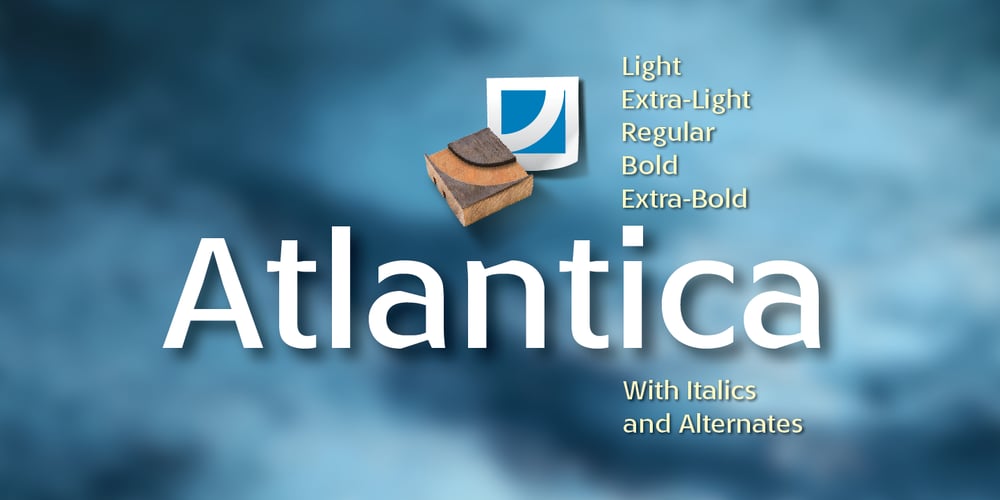
Atlantica
Atlantica font
Atlantica Font Family was designed by published by Jonahfonts. Atlantica contains 10 styles and family package options. My pet peeve for many years has been with the ‘rn’ in small texts, especially with my smart phone. I felt that perhaps others may have the same peeve.I decided to try and fix that with Atlantica. As you can see in poster No. 4.”With the combination of ‘rn’ in small text it tends to appear as ‘m’. Therefore it may be read as ‘s t e m’ instead of ‘s t e r n’. Altalntica has an alternate ‘rn’. By invoking the < Contextual-Alternate > feature. Atlantica will replace each ‘rn’ – or you may individually change them if you desire”. Also note the deep cuts to help legibility for smaller texts.This combination apparently does not appear in many words, but when it does it can suggest a different word as in; eastern, stern, tarnish, Tornado, Turn and in some names as well.